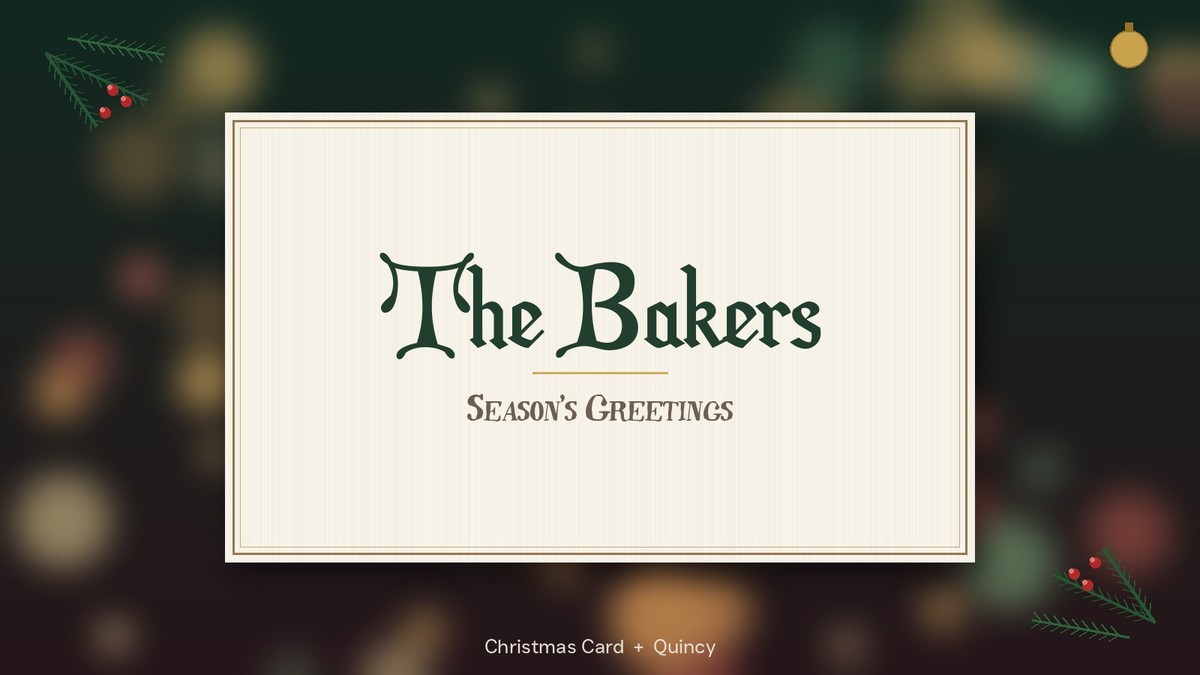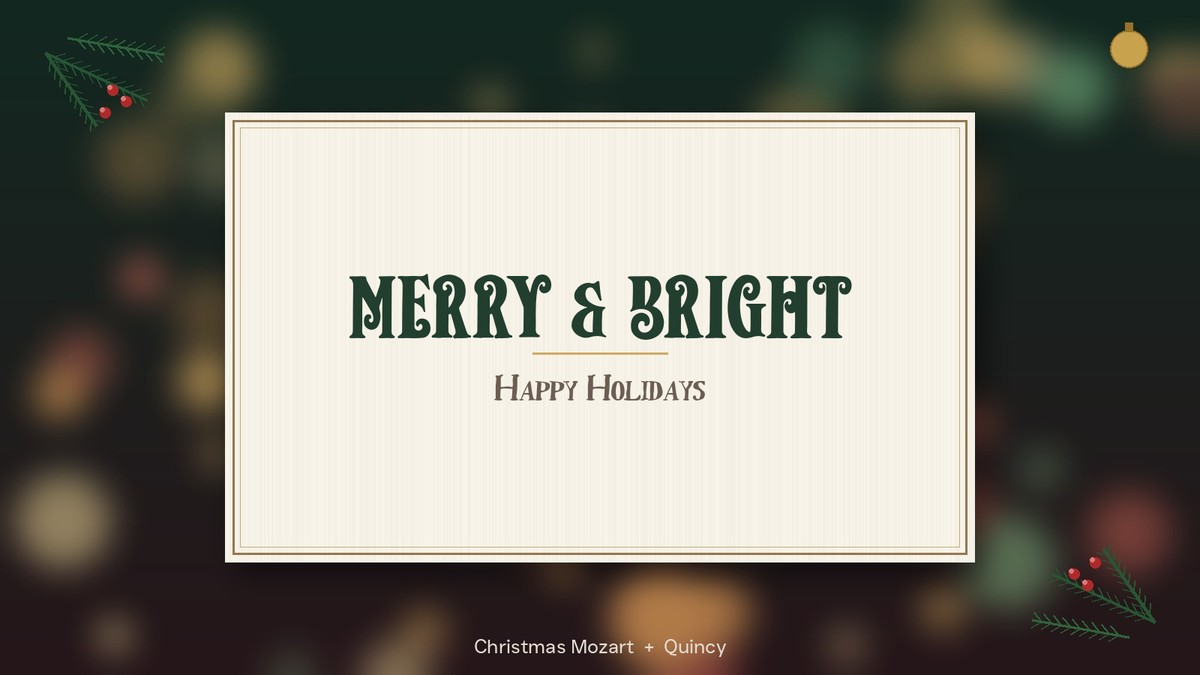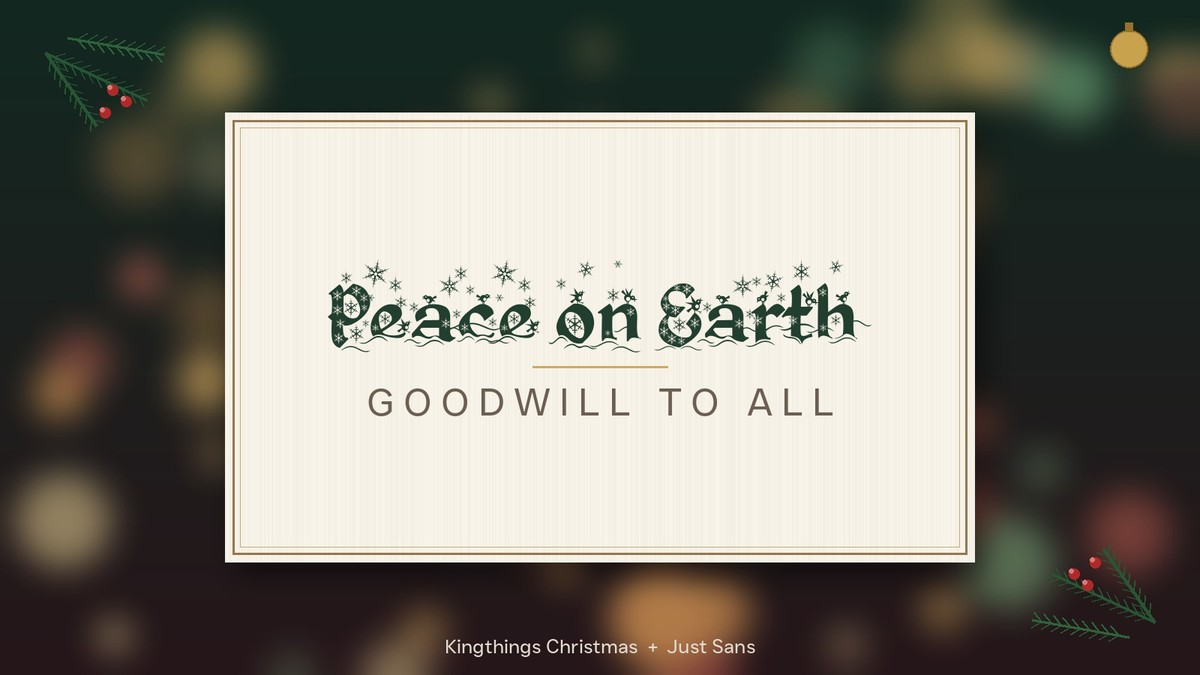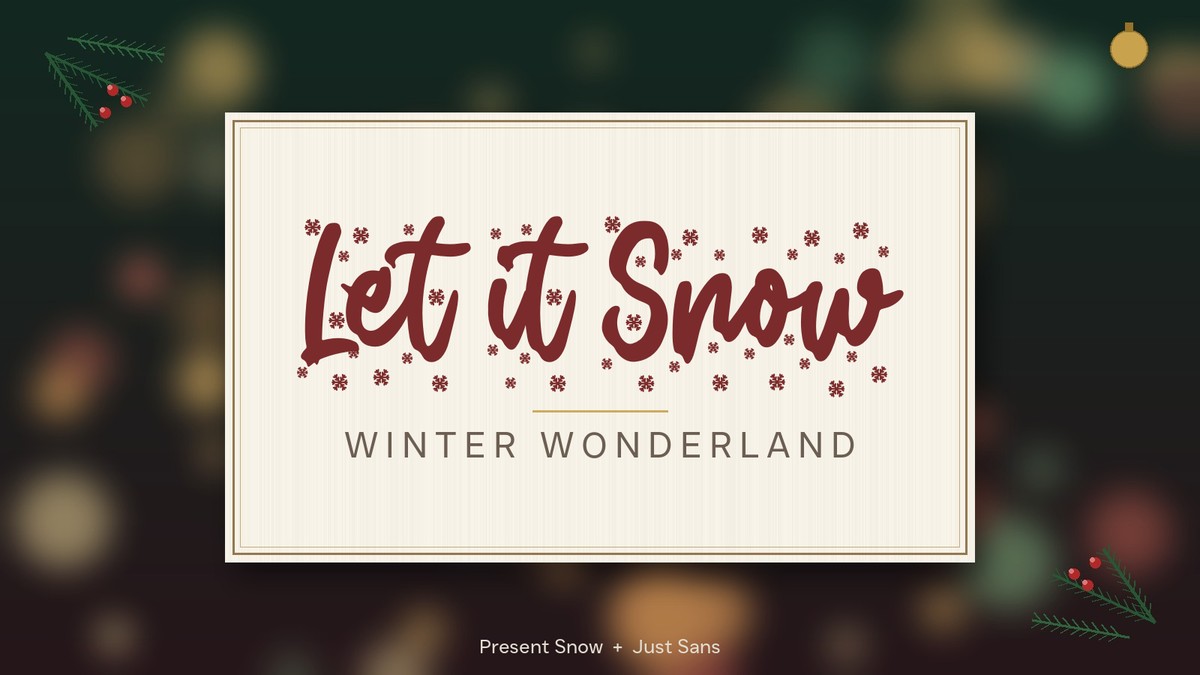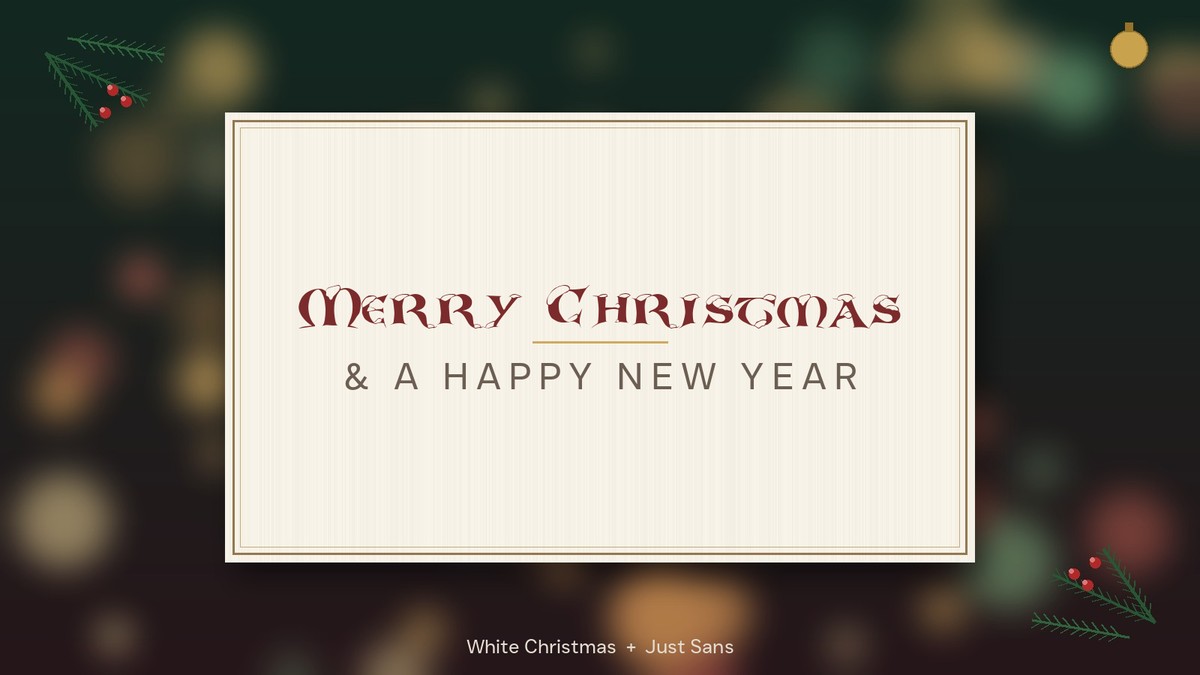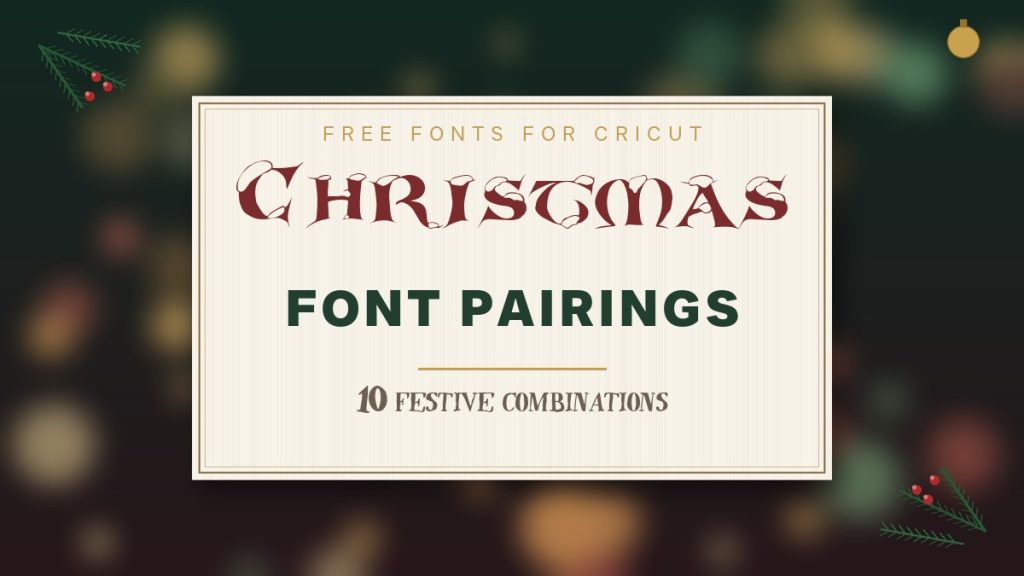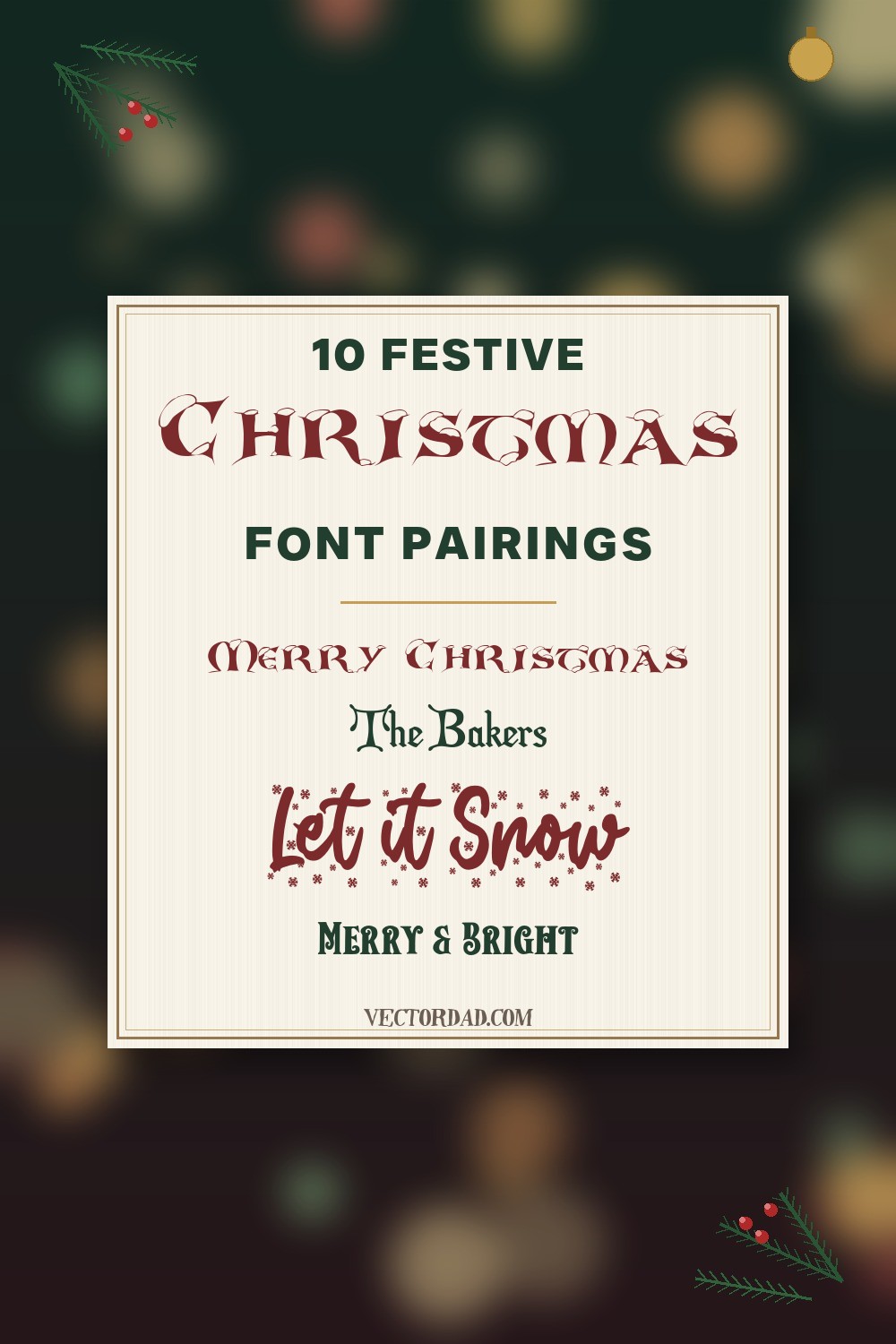
10 Festive Christmas Font Pairings (Free Fonts for Cricut)
A great Christmas design lives or dies on warmth – the glow of something festive balanced by a line you can actually read across the room. Whether you are cutting a vinyl sign for the mantel, printing holiday cards at the kitchen table, or lettering a gift tag on your Cricut, the two fonts you choose set the entire mood. Pick the right festive-plus-simple pairing and even a plain phrase like Merry Christmas suddenly feels like it belongs on a hand-finished keepsake.
Christmas font pairing is simply the craft of combining two complementary typefaces so each one does a job the other cannot: one characterful display face – snowy, elegant, traditional or playful – to carry the headline, and one clean, quiet companion to keep the supporting line legible. Below are five Christmas pairings – every one built from free fonts you can download here on VectorDad – rendered onto a cozy holiday sign mockup so you can see exactly how each looks before you download a thing.
How to Pair Fonts for a Christmas Sign or Card: 4 Quick Principles
Before the examples, here are the rules that make a two-font Christmas design work. Keep these in mind and you can build holiday lettering far beyond this list.
• Contrast festive with simple. Pair one expressive holiday or display face with a calm, neutral partner. Two decorative fonts compete with each other; a characterful headline over a quiet supporting line reads as intentional rather than cluttered.
• Protect legibility. Christmas display fonts are full of texture – snow caps, swashes and heavy blackletter strokes – so let the personality live in the big word and keep the second line in a clean sans or serif that stays readable from across the room.
• Give it room to breathe. Generous spacing is what separates a polished card from a crowded one. Add a little letter-spacing to short caps lines and leave plenty of calm space around the text so the lettering and the glow both land.
• Match the mood. Let the display font set the tone – snowy and soft for a cozy-cabin look, elegant and engraved for a formal card, bold blackletter for a traditional carol, bouncy and snow-capped for a kid-friendly craft – then choose a neutral companion that stays out of its way.
5 Festive Christmas Font Pairings
1. White Christmas + Just Sans
Merry Christmas and a happy new year Christmas font pairing on a cozy holiday sign mockup
Why it works: White Christmas is a soft, brushy holiday script with a hand-painted, snow-dusted feel that instantly reads as Christmas Eve by the fire. Pairing it with clean, widely spaced Just Sans caps grounds all that warmth so the supporting line stays calm and effortlessly readable – a cozy script headline over a quiet geometric sans is the modern-holiday formula in a nutshell.
Use it for: mantel signs, family Christmas cards, “merry & bright” wall prints, and gift-tag bundles.
2. Christmas Card + Quincy
The Bakers seasons greetings elegant Christmas font pairing on a cozy holiday sign mockup
Why it works: Christmas Card is a flowing, elegant calligraphic face with graceful swashes that feels like a hand-addressed envelope. Because it is so refined, it pairs beautifully with the vintage serif Quincy, which keeps the supporting line crisp and keepsake-worthy beneath the script.
Use it for: formal holiday invitations, place cards, “season’s greetings” stationery, and personalized family-name signs.
3. Kingthings Christmas + Just Sans
Peace on Earth goodwill to all blackletter Christmas font pairing on a cozy holiday sign mockup
Why it works: Kingthings Christmas is a traditional blackletter display with the weight and character of an old carol book – stately and unmistakably festive. Anchoring all that heritage with clean, spaced Just Sans caps keeps the message clear so the blackletter can stay rich and ornamental.
Use it for: “peace on earth” wall art, traditional carol posters, church bulletin headers, and vintage-style ornaments.
4. Present Snow + Just Sans
Let it Snow winter wonderland playful Christmas font pairing on a cozy holiday sign mockup
Why it works: Present Snow is a chunky, bouncy display capped with little drifts of snow – more playful than formal, which makes it perfect for kid-friendly Christmas crafting. Setting the supporting line in clean Just Sans keeps the lockup friendly and crisp – cheerful up top, clear underneath.
Use it for: children’s holiday crafts, classroom decor, hot-cocoa station signs, and “let it snow” tees.
5. Christmas Mozart + Quincy
Merry and Bright happy holidays elegant Christmas font pairing on a cozy holiday sign mockup
Why it works: Christmas Mozart is an elegant, engraved display with a fine, formal character that recalls an embossed holiday card. Pairing it with Quincy’s refined serif adds a polished, classic foundation underneath and turns a short phrase into a balanced, grown-up lockup.
Try one of these five pairings on your next Christmas project, then remix the same fonts into your own holiday lettering. With the right two typefaces – and the mockups above to guide you – even a single phrase like Merry Christmas can turn a blank sign into the cosiest thing on the mantel.